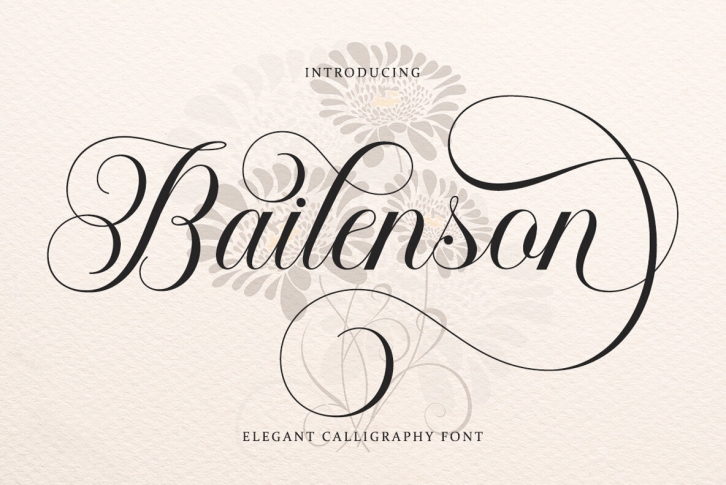
Unveiling Bailenson Calligraphic Font: Classic Meets Elegance for Graphic Designs
Introducing the striking Bailenson calligraphic font, lovingly created by the adept designer, Pista Mova. Imbued with a vintage charm reminiscent of classic Italian women's penmanship and historical manuscripts, Bailenson's allure lies in its seamless mixture of tradition and sophistication.
Diligently crafted, this exceptional font offers a balanced harmony making it a choice pick for an array of design ventures. From designing enticing wedding favors, captivating book covers to wide-ranging marketing materials, Bailenson infuses elegance and professionalism in every design. It's no surprise that graphic designers and marketing firms have found in Bailenson a trustworthy tool for communicating luxe, class, and distinction. Revel in the sheer splendor of Pista Mova's Bailenson font, where classic style meets elegance and functionality.